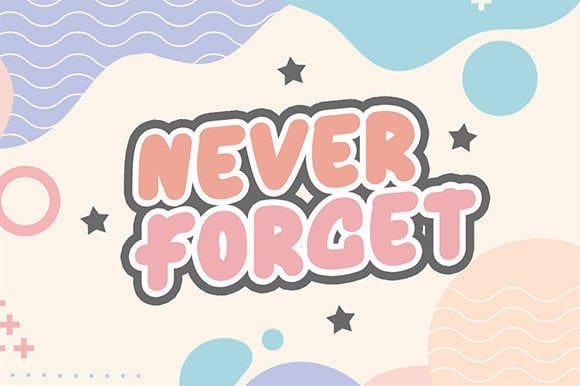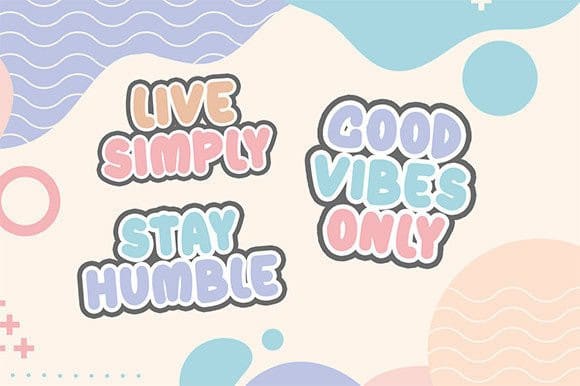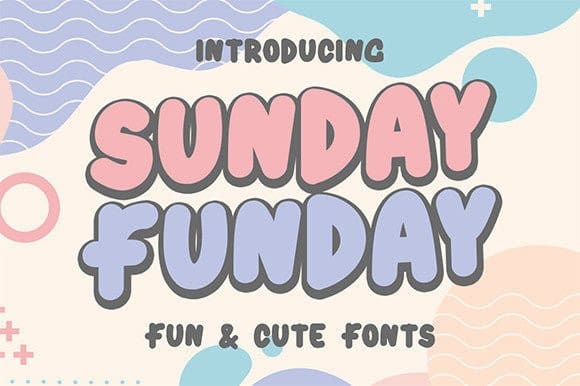
Sunday Funday Font
Sunday Funday Font is a fun and child-themed display font full of life. It will add a friendly and quirky feel to any design project!